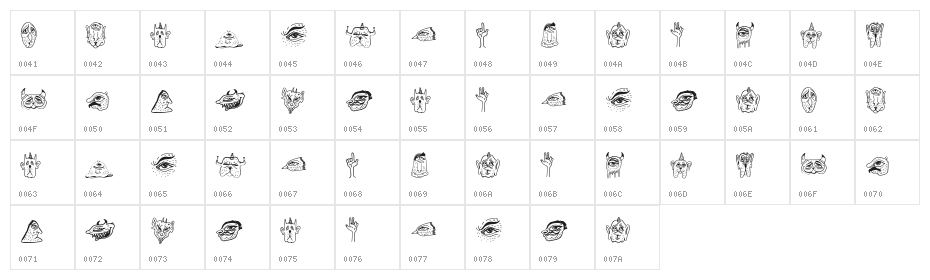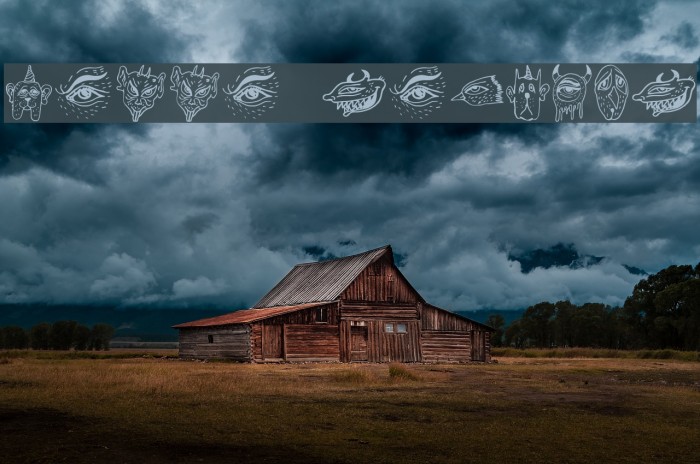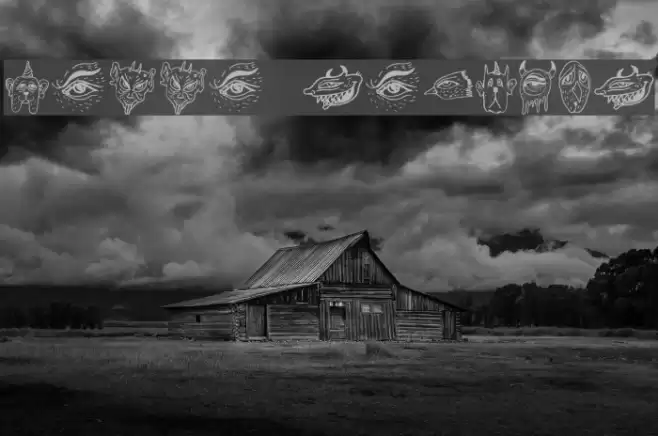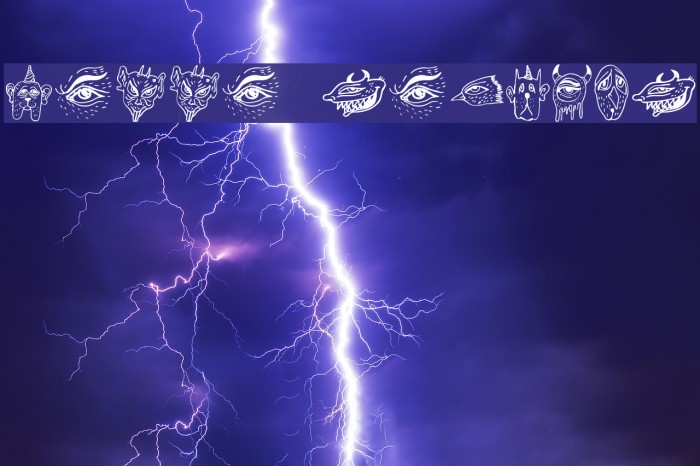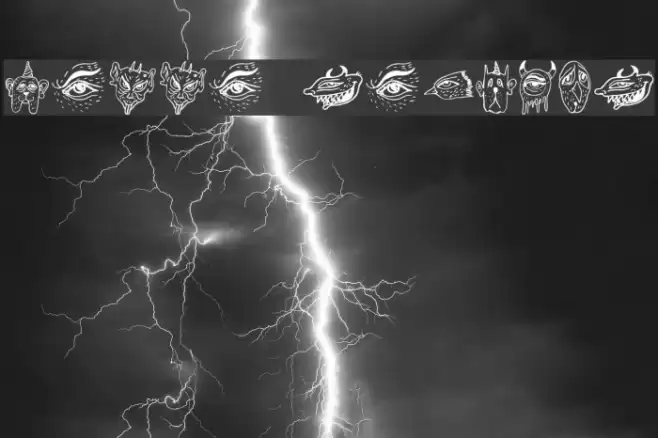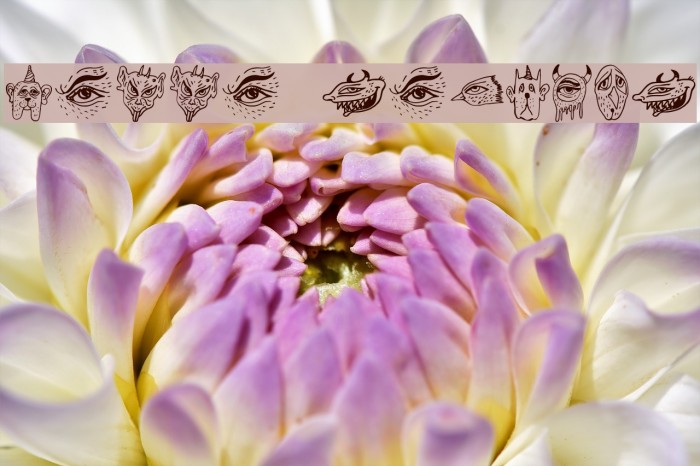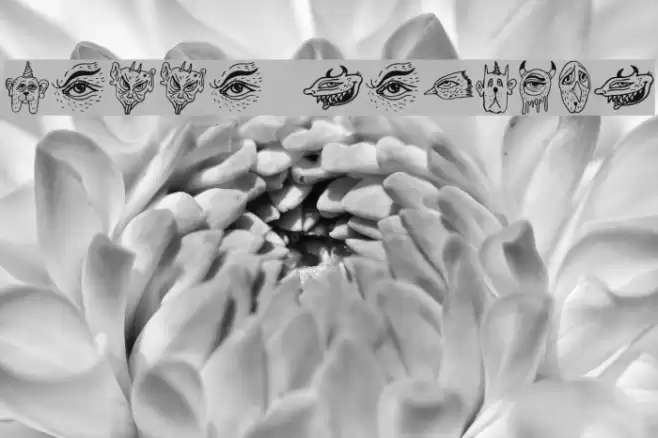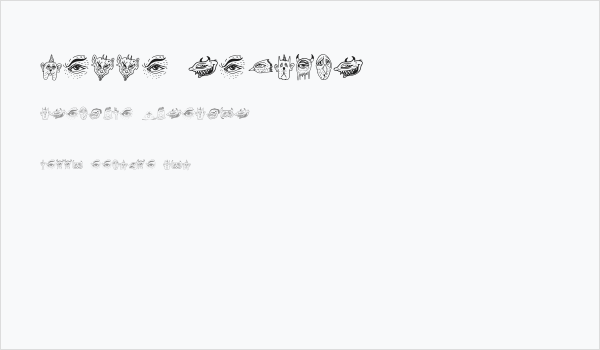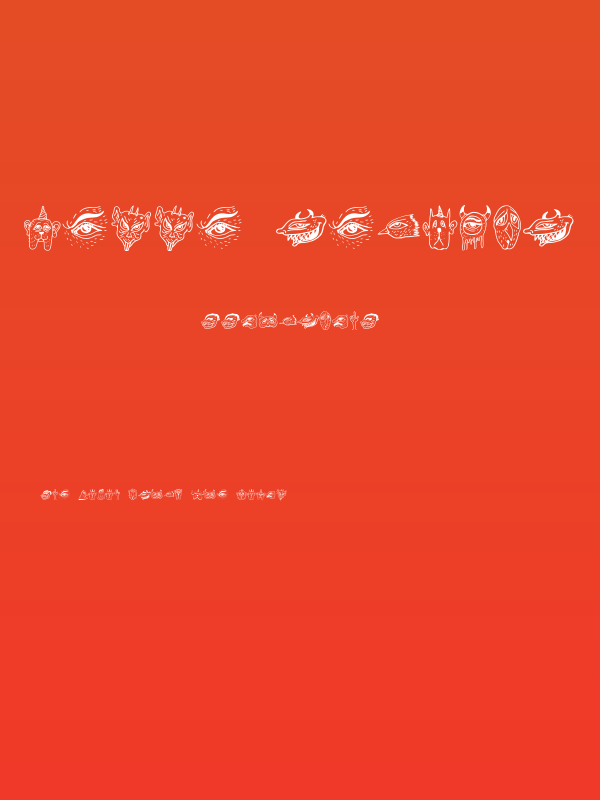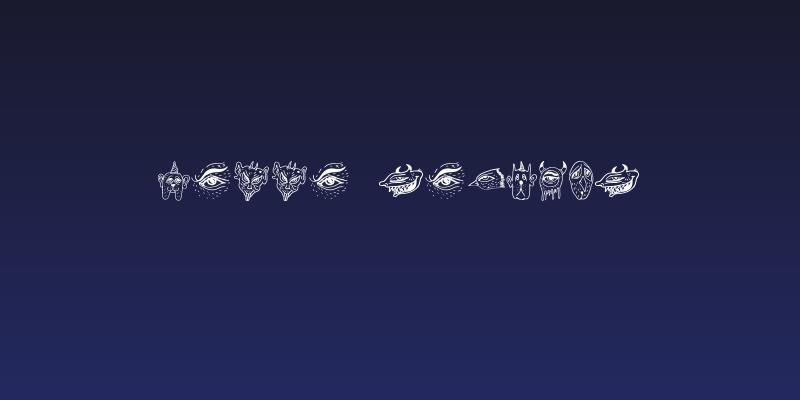
Messe Regular Font
Messe Regular Description
A highly decorative and whimsical font composed of hand-drawn monster faces, eyes, and hands, each character uniquely illustrated with playful and surreal details, giving a quirky and artistic vibe.
| Overall Style | Decorative, Whimsical, Artistic |
| Use Case | Logos, Headlines, Posters, Themed event materials |
| Proposed Projects | Poster art, album covers, Halloween invitations, children's book titles, creative branding, event flyers. |